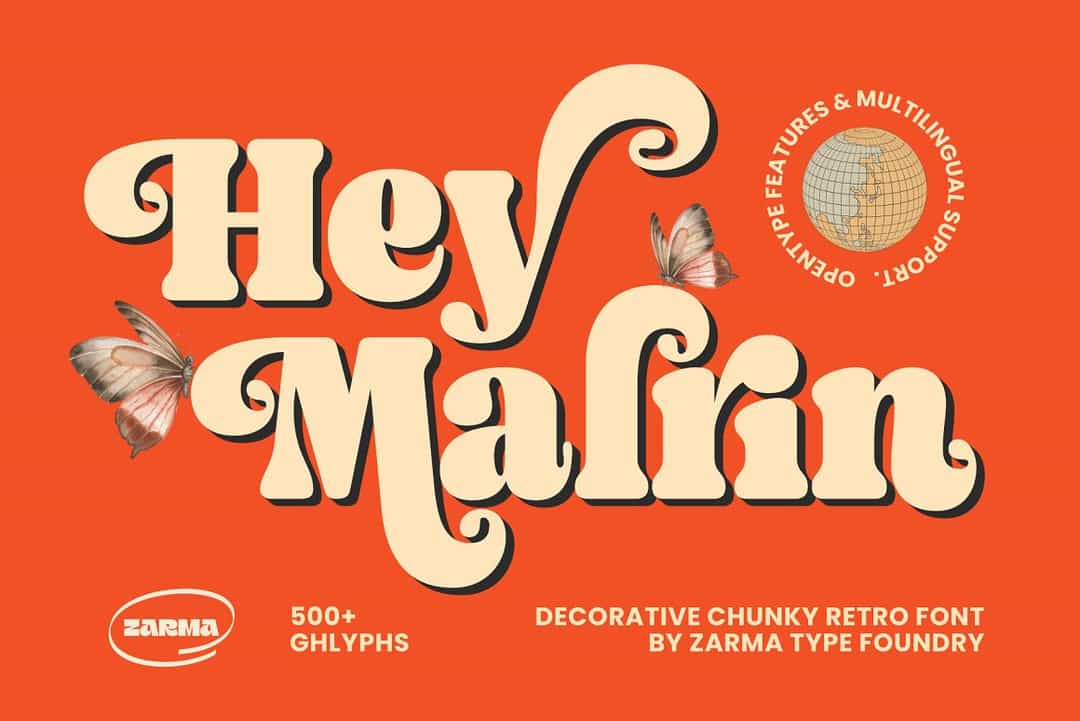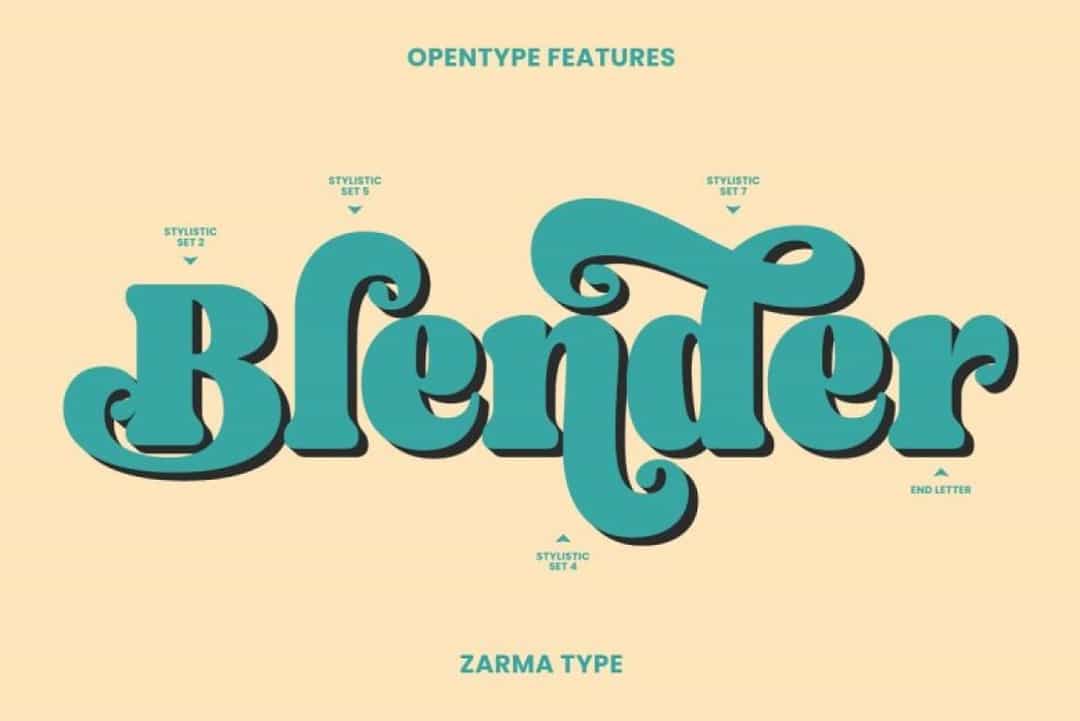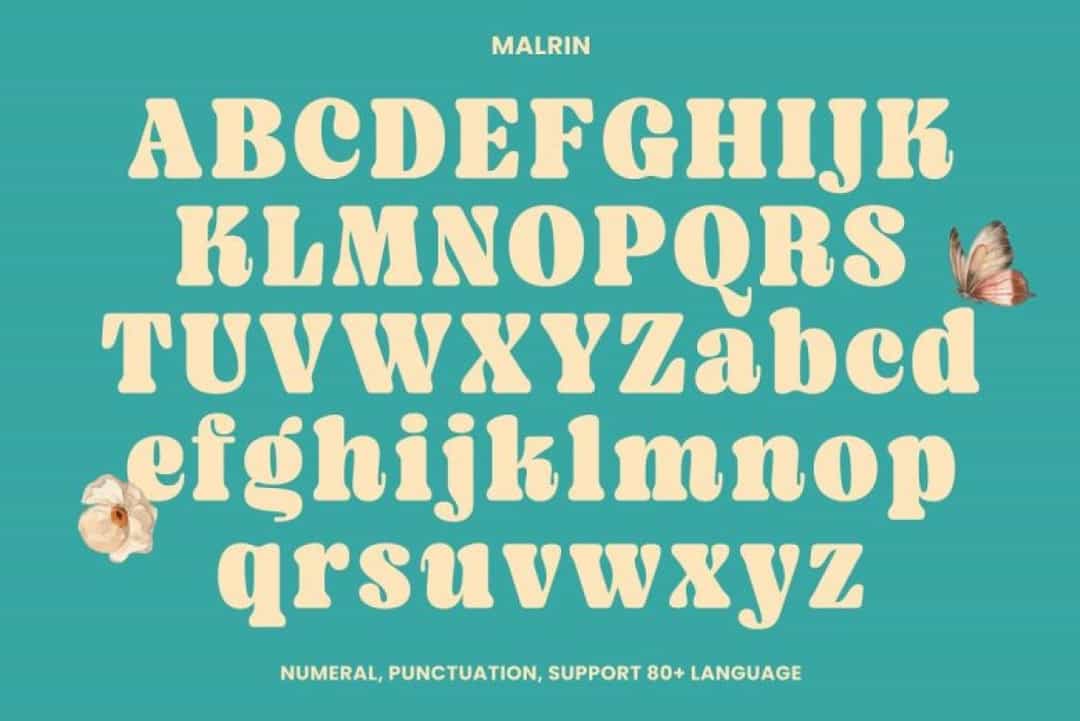
Malrin Font
Malrin font is a chunky serif font inspired by the famed “fatface font”. Malrin offers a funky and quirky touch of psychedelic design for an appealing design aesthetic. Additionally, Malrin boasts many alternate characters as well as Ligatures for maximum flexibility and functionality.